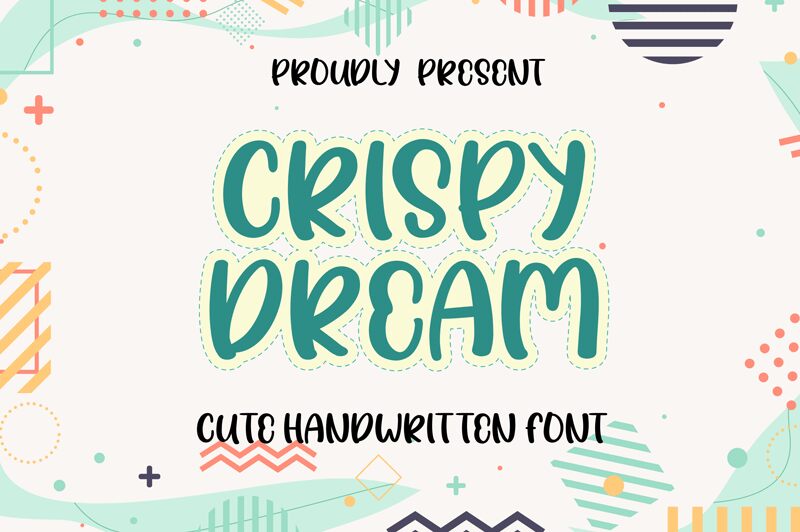
Crispy dream
Crispy Dream, by Erlina Graphic, is a playful display font that adds a touch of whimsy to any project. With its semi-bold weight and cartoon style, this font is perfect for children's books, party invitations, and logos for fun-loving brands. Its unique design ensures that it stands out from the crowd while still remaining easy to read. Whether you're looking to create a lighthearted website or add some personality to your packaging, Crispy Dream is the font for you. Let your imagination run wild with this delightful typeface!